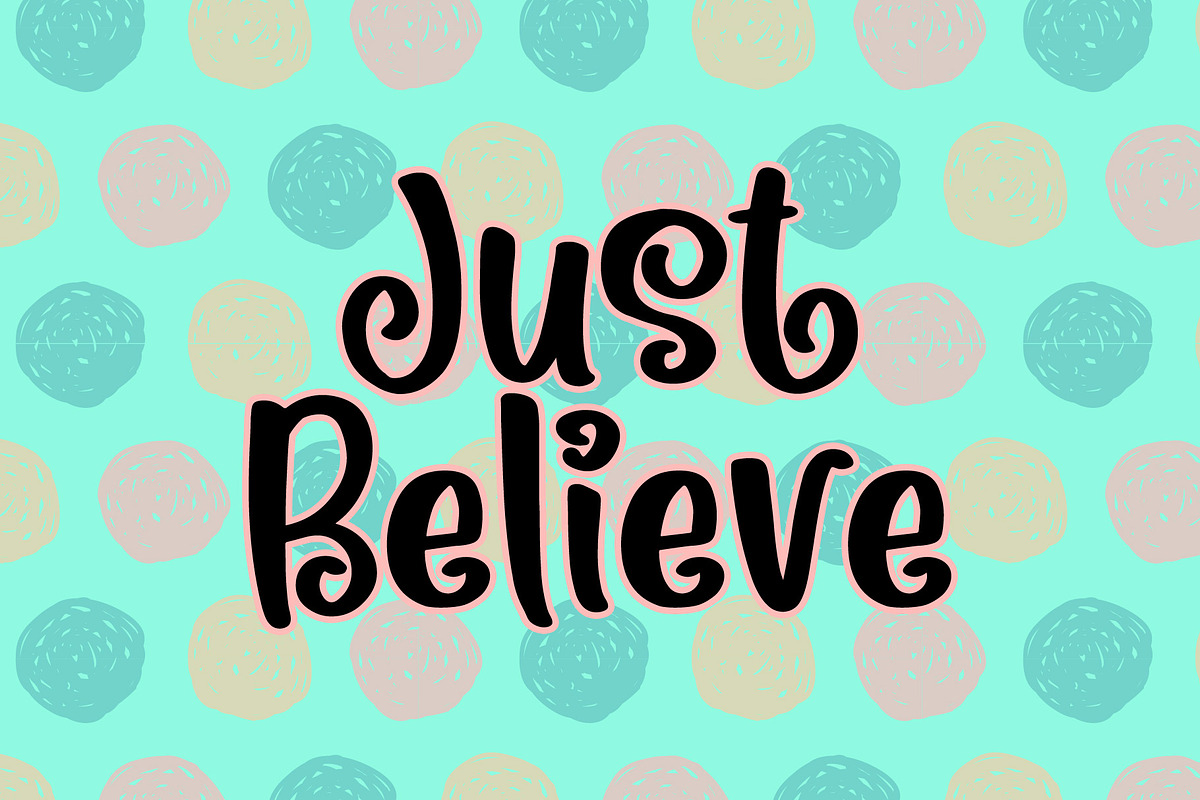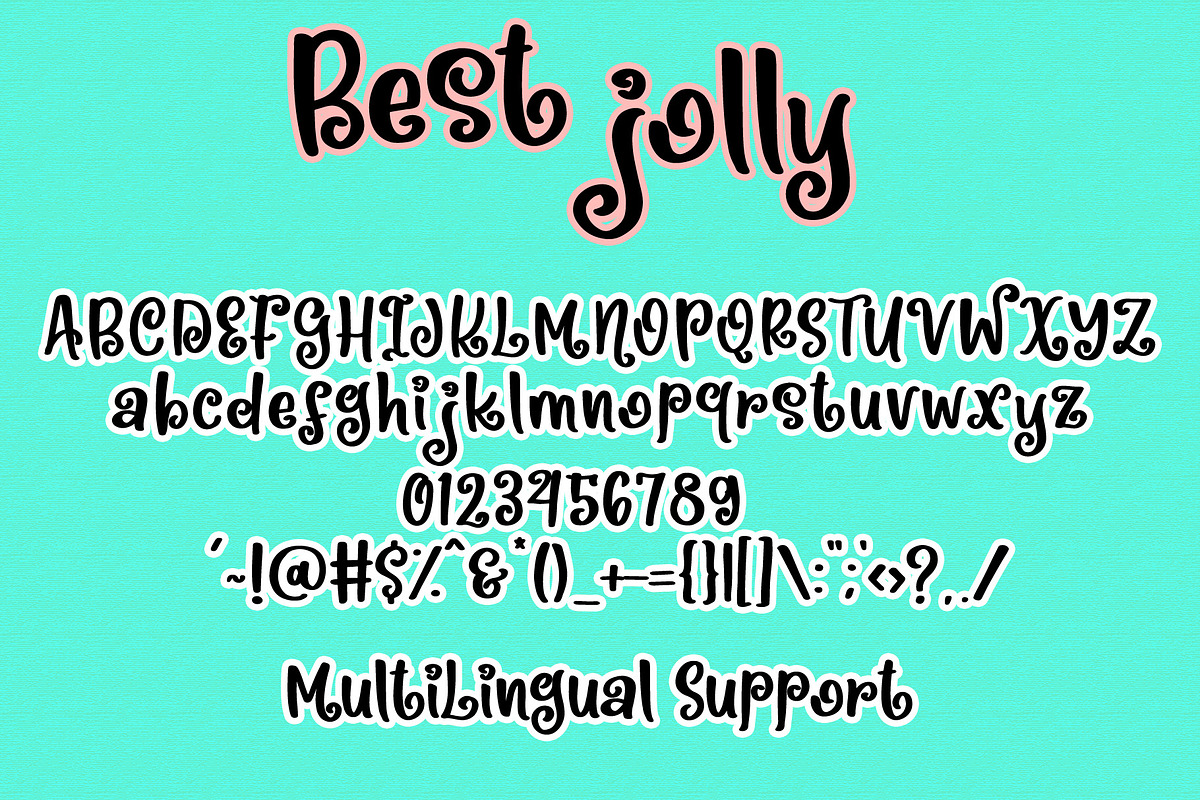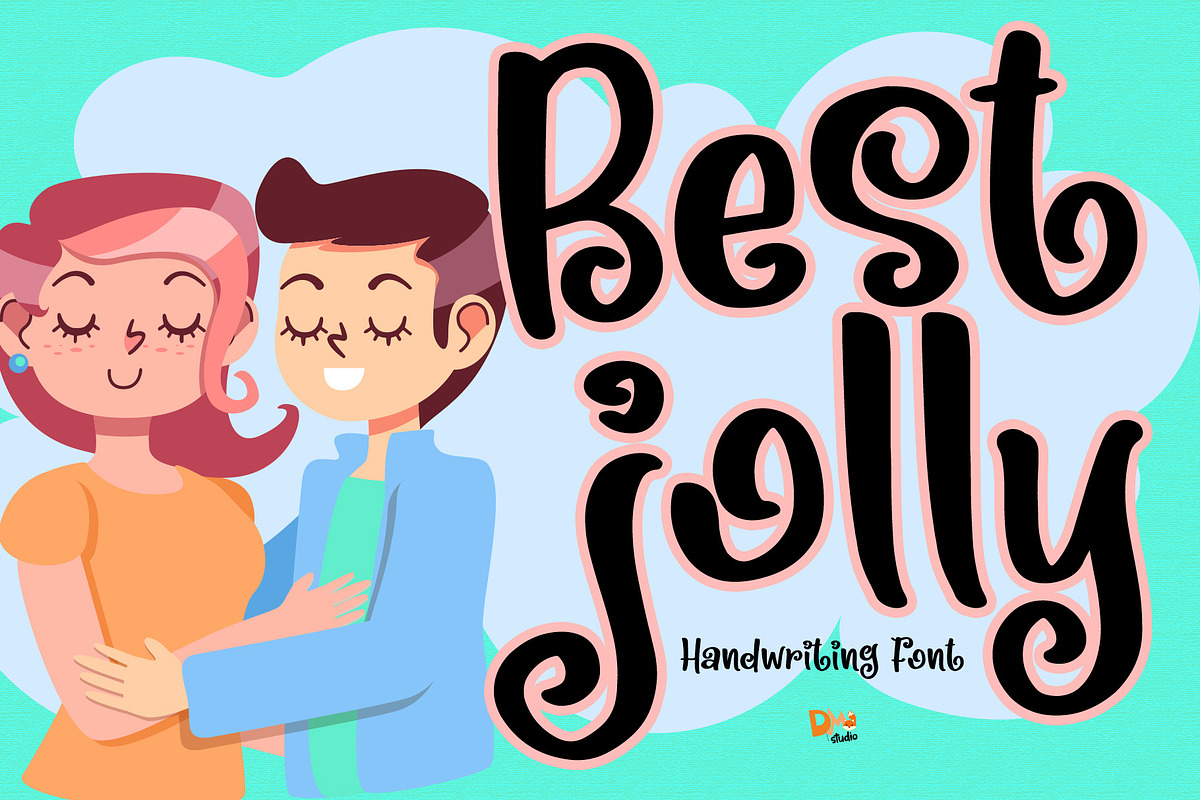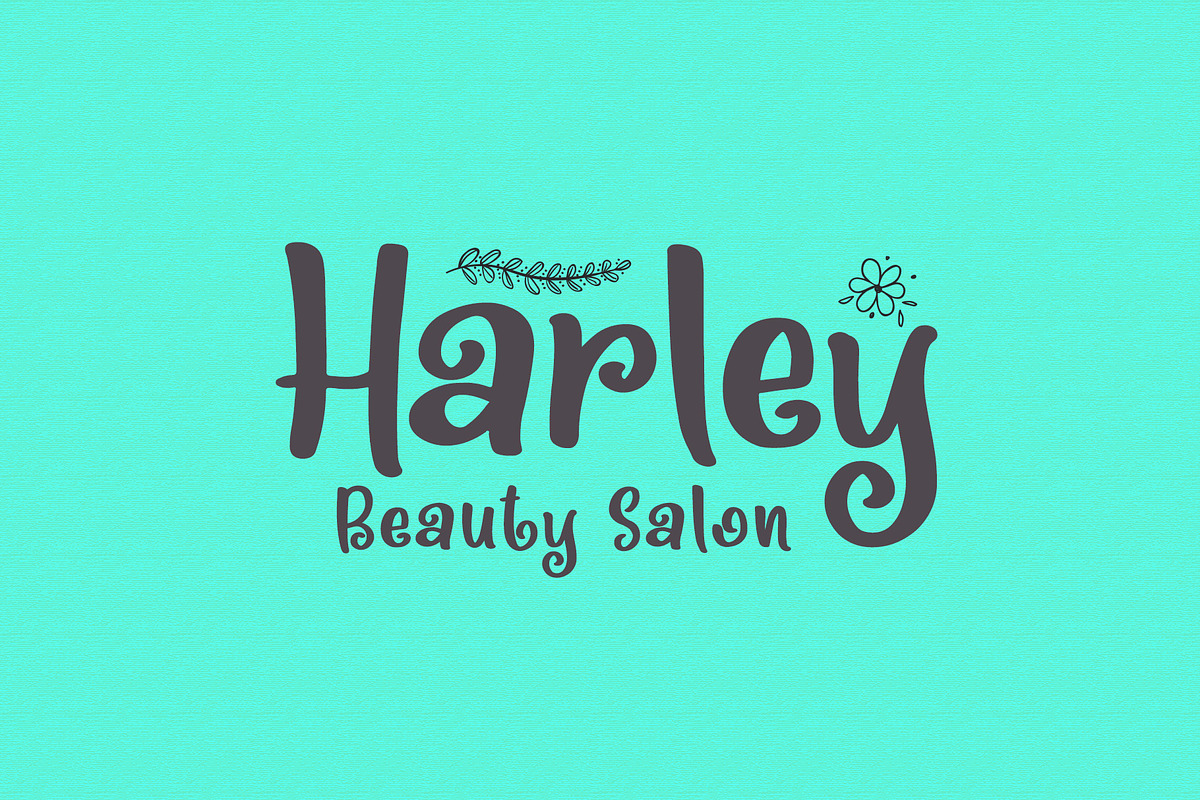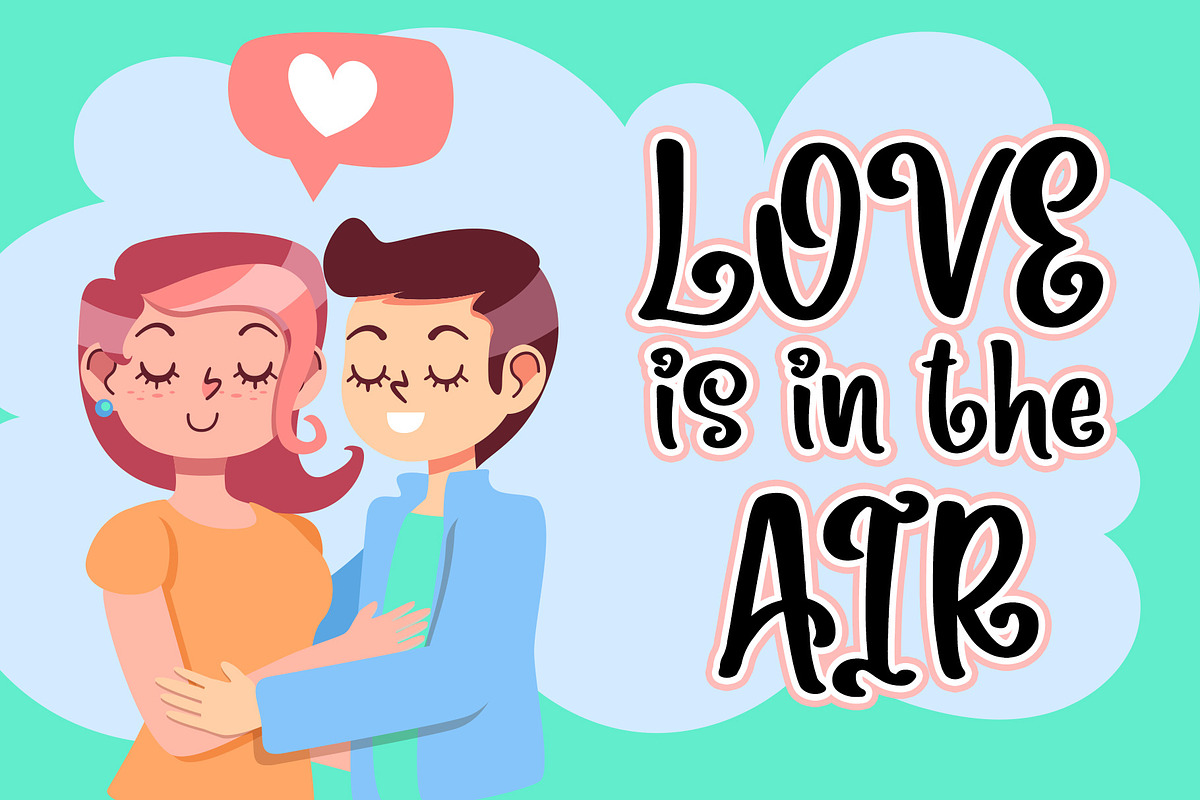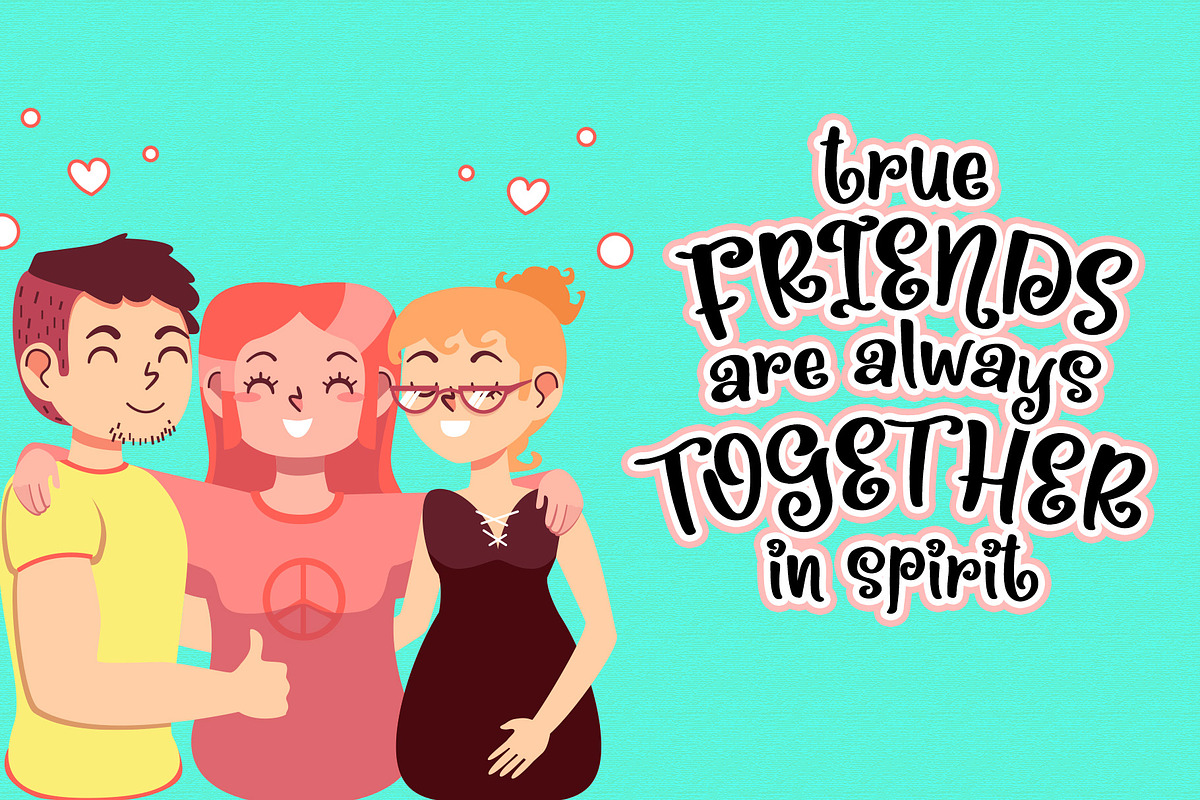
Best Jolly - Handwritting Font
Best Jolly is the cute, curly, and fun handwritten font. Create your awesome crafts with this playful font!
Best Jolly - Handwritting Font by Dm Studio fits naturally into Branding, posters, packaging, typography.